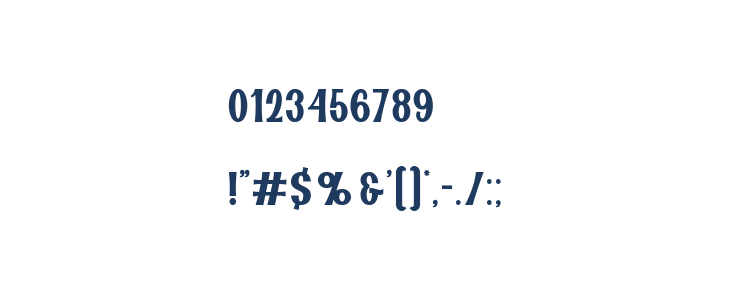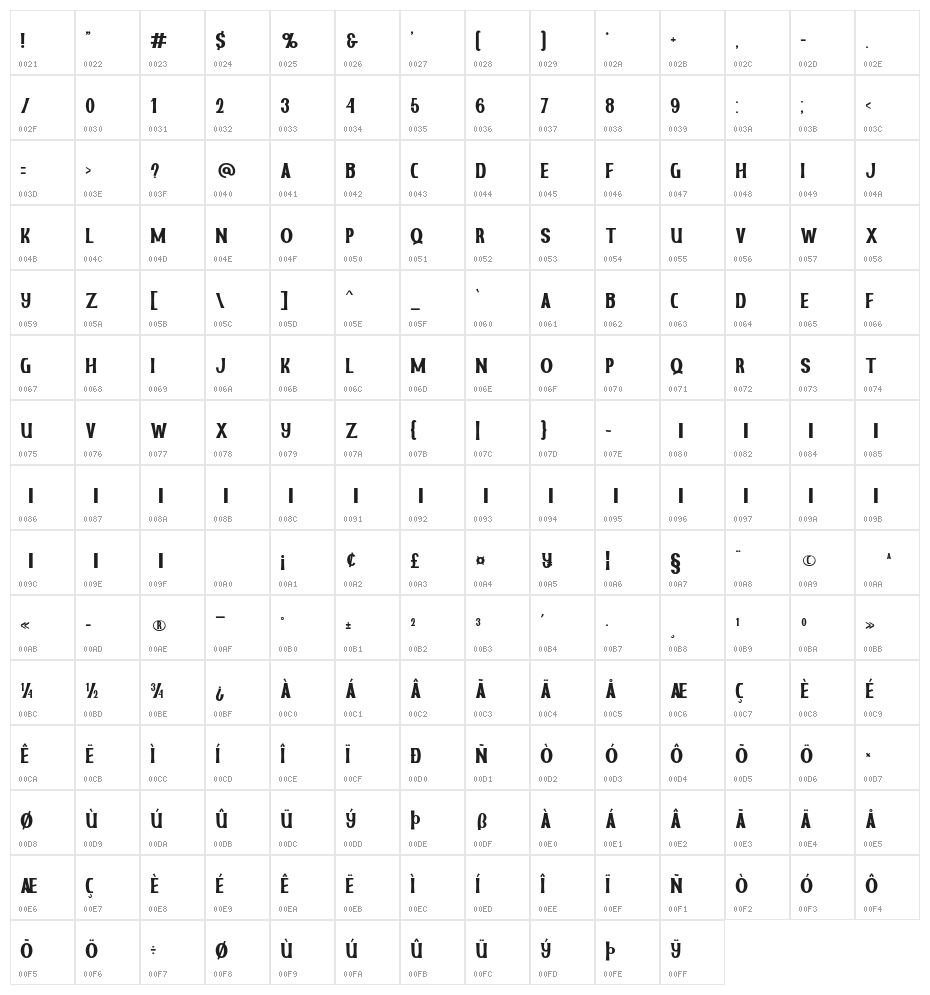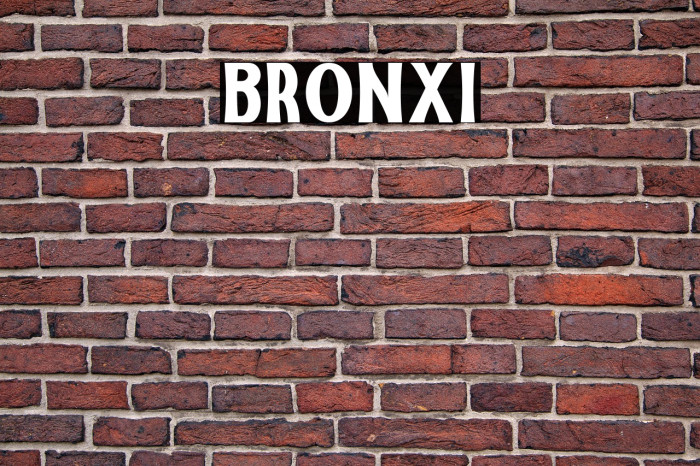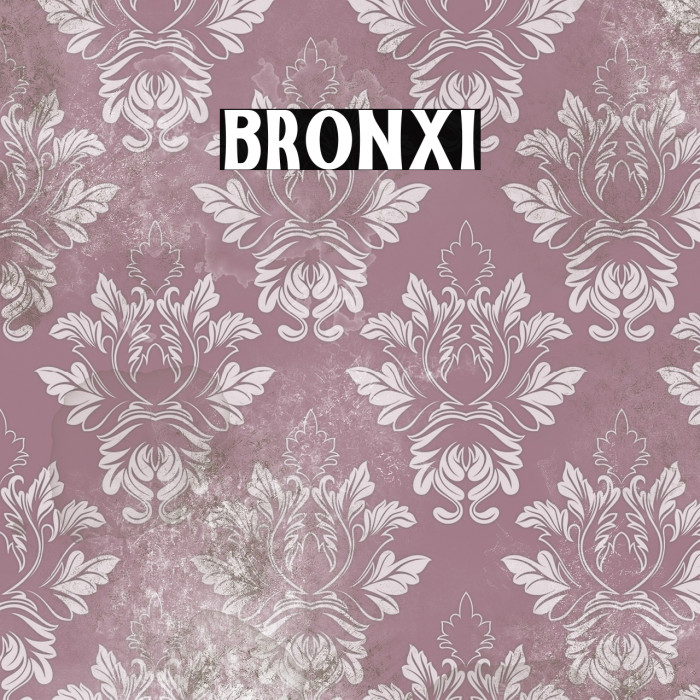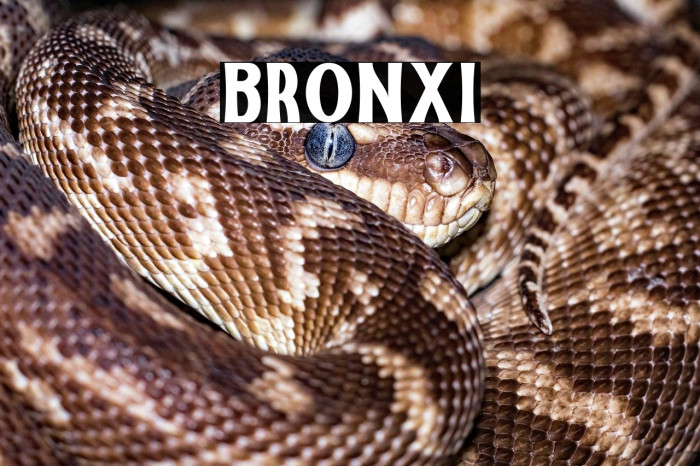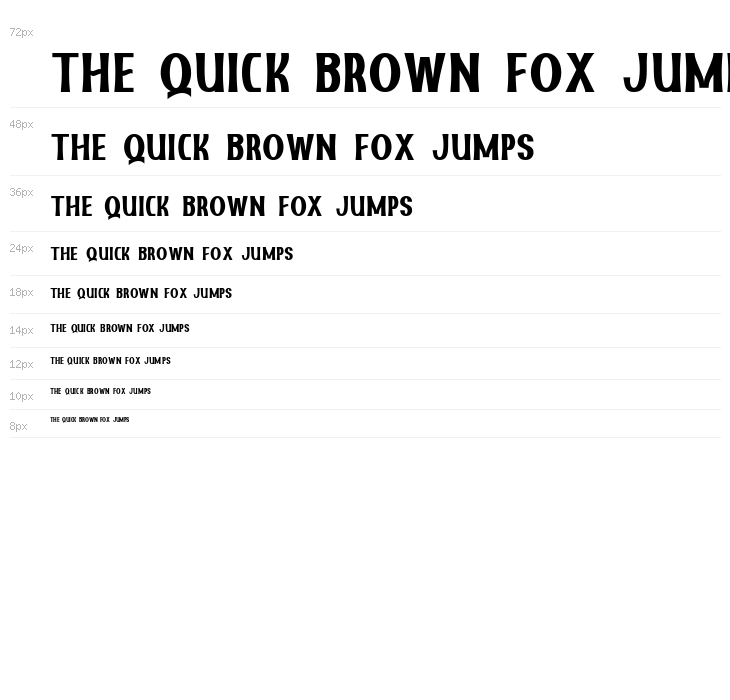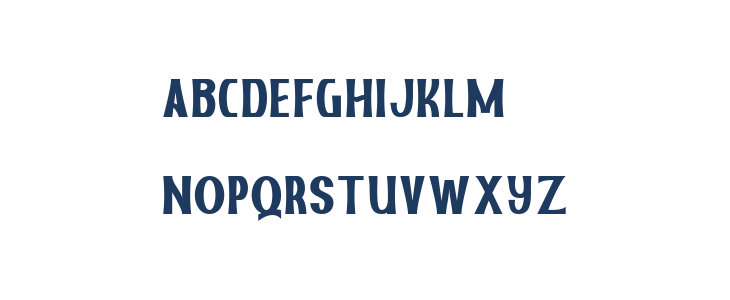
Bronxi Font
Bronxi Description
This font features a bold and dynamic style with a distinctive flair in its design. The uppercase letters are characterized by strong, angular lines and a slight curvature at the ends, giving them a unique, almost vintage feel. The lowercase letters maintain this boldness, with consistent stroke widths and a playful touch in their curves. Numbers are equally bold, ensuring readability and impact. The special characters are crafted with attention to detail, complementing the overall aesthetic. This font is perfect for projects that require a strong visual presence and a touch of personality.
| Proposed Projects | Ideal for branding, posters, headlines, and any design needing a bold statement. |